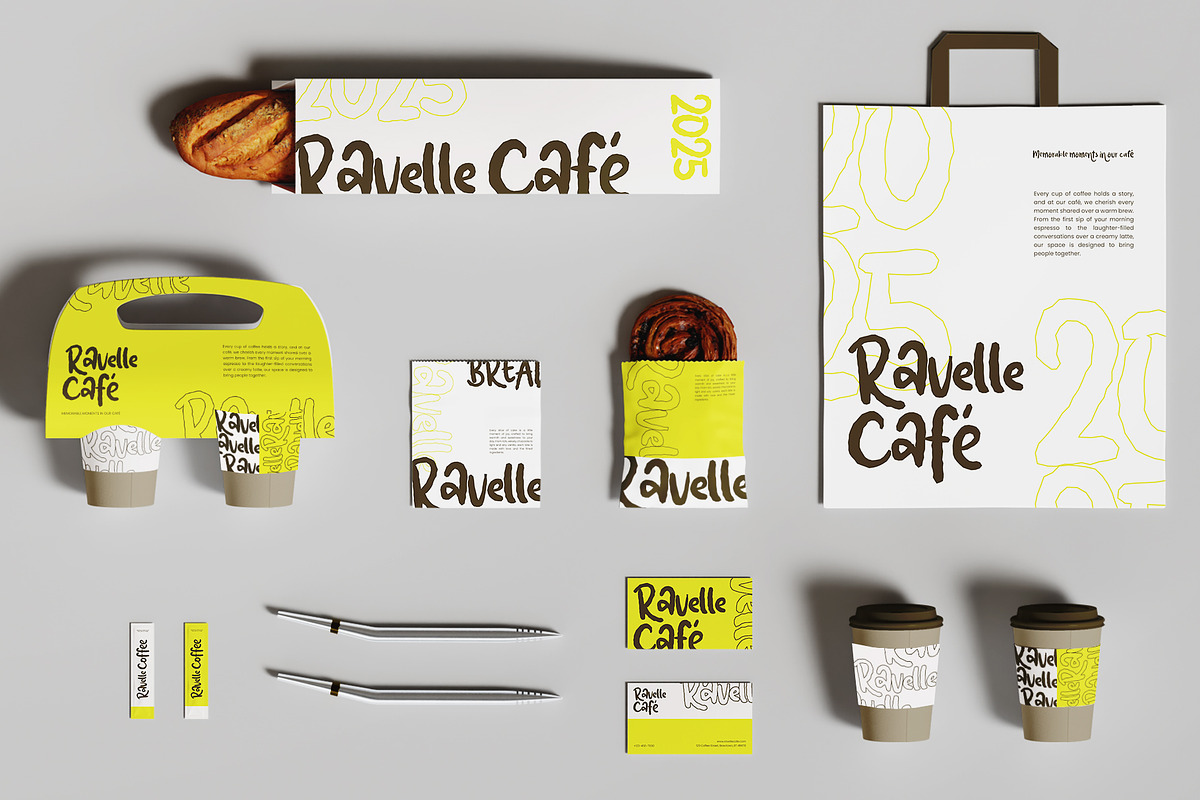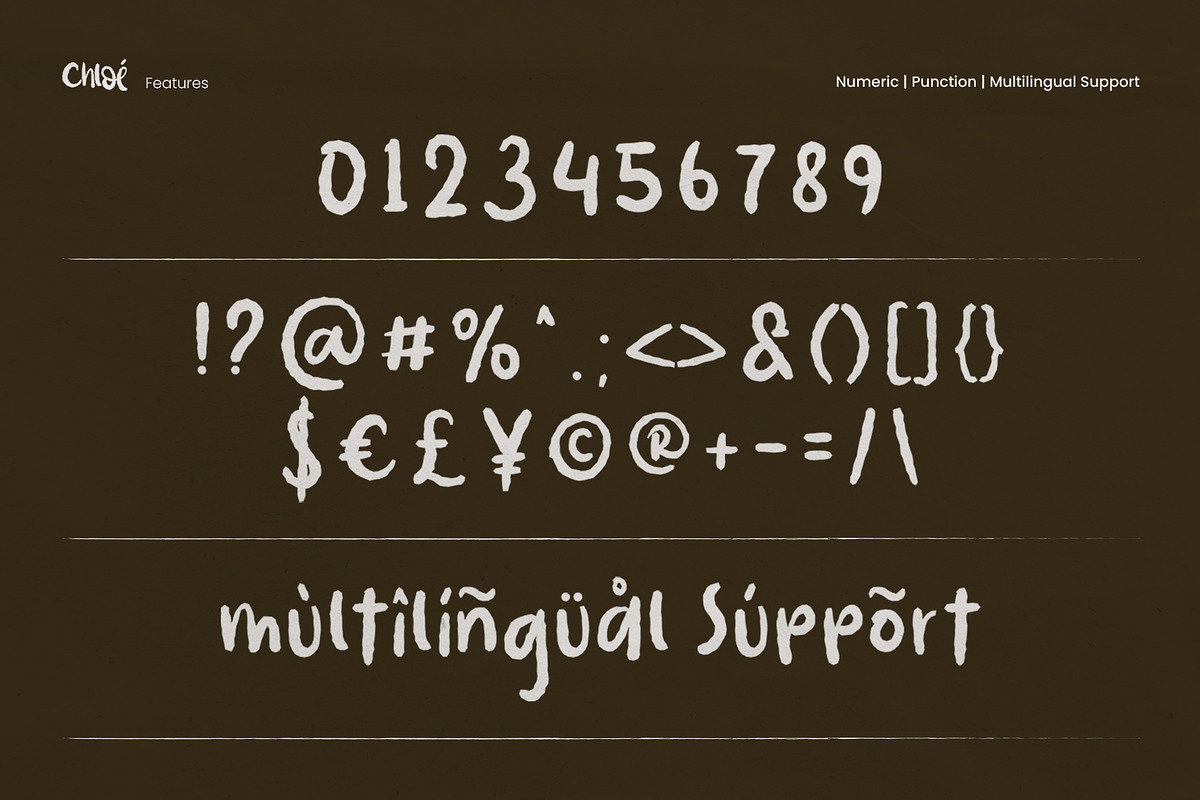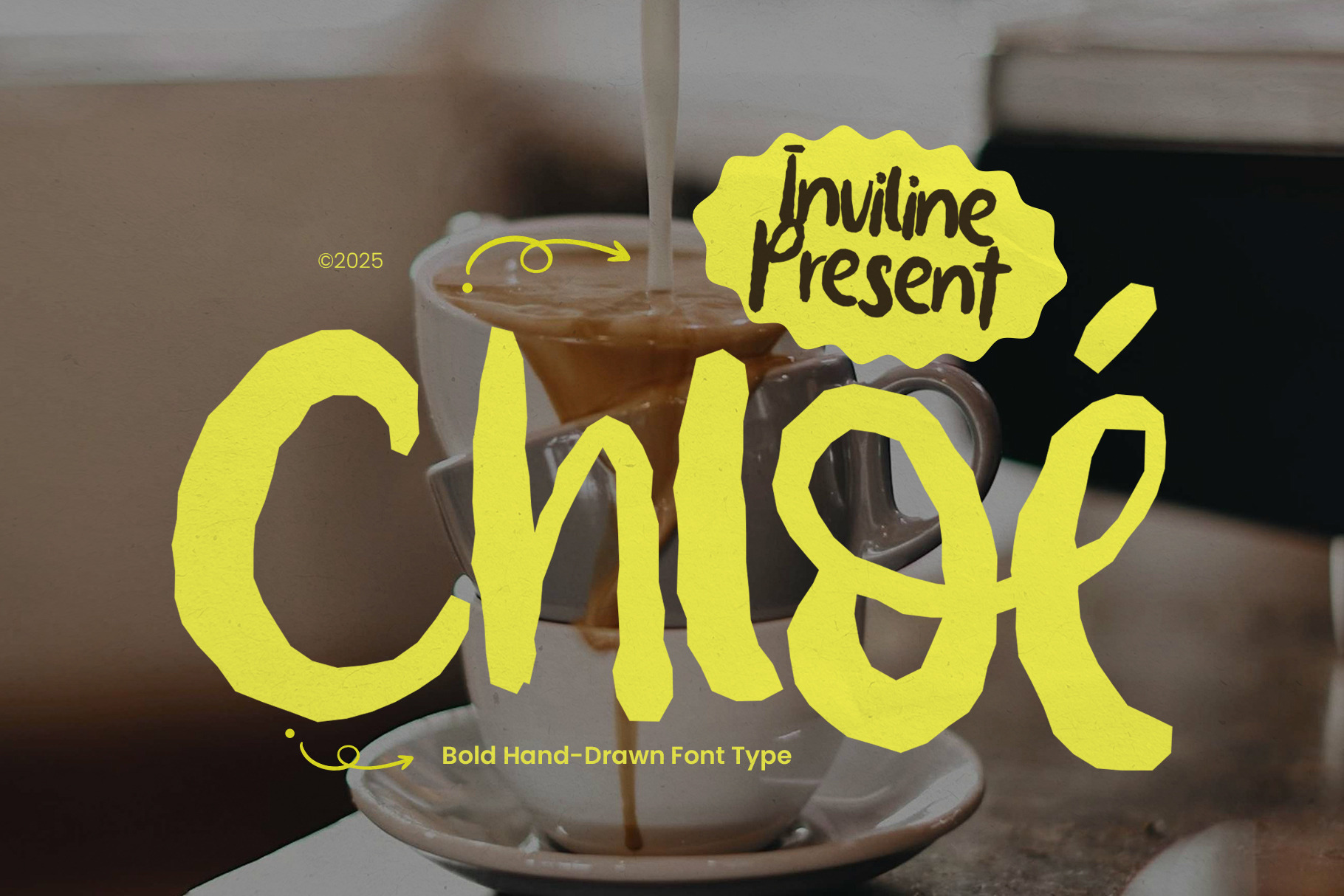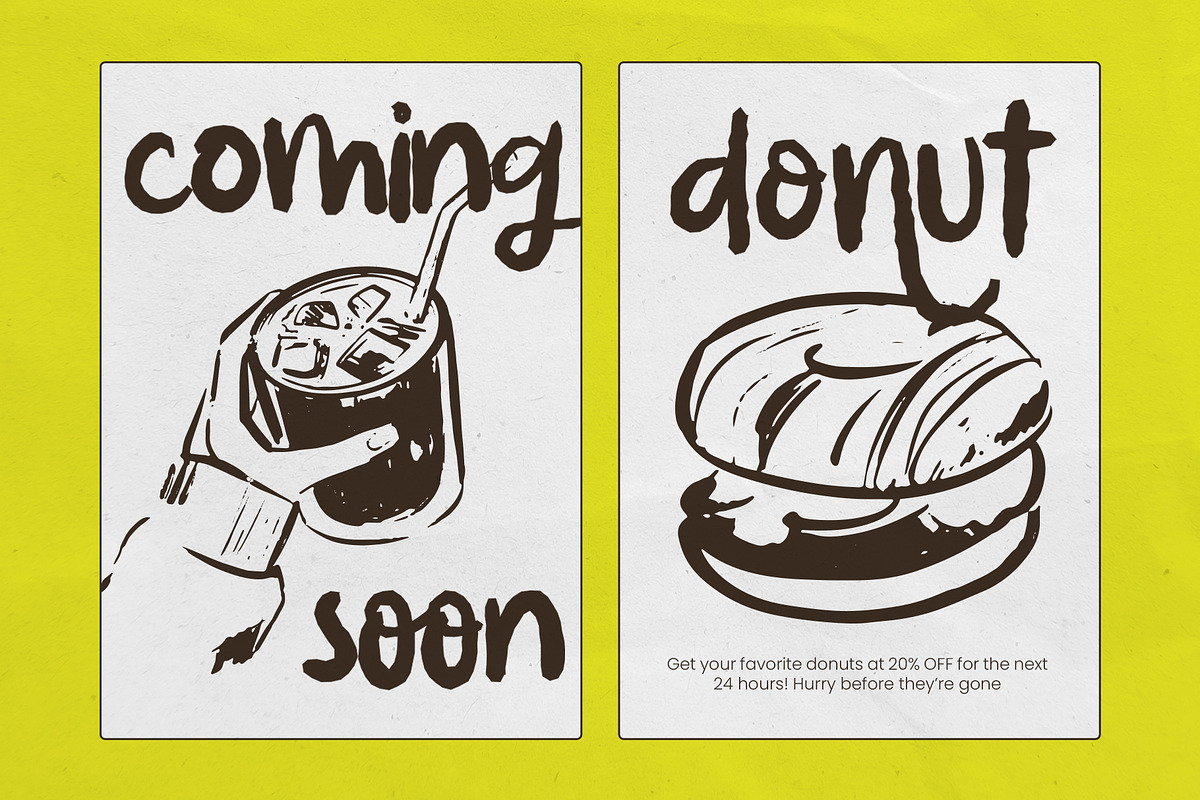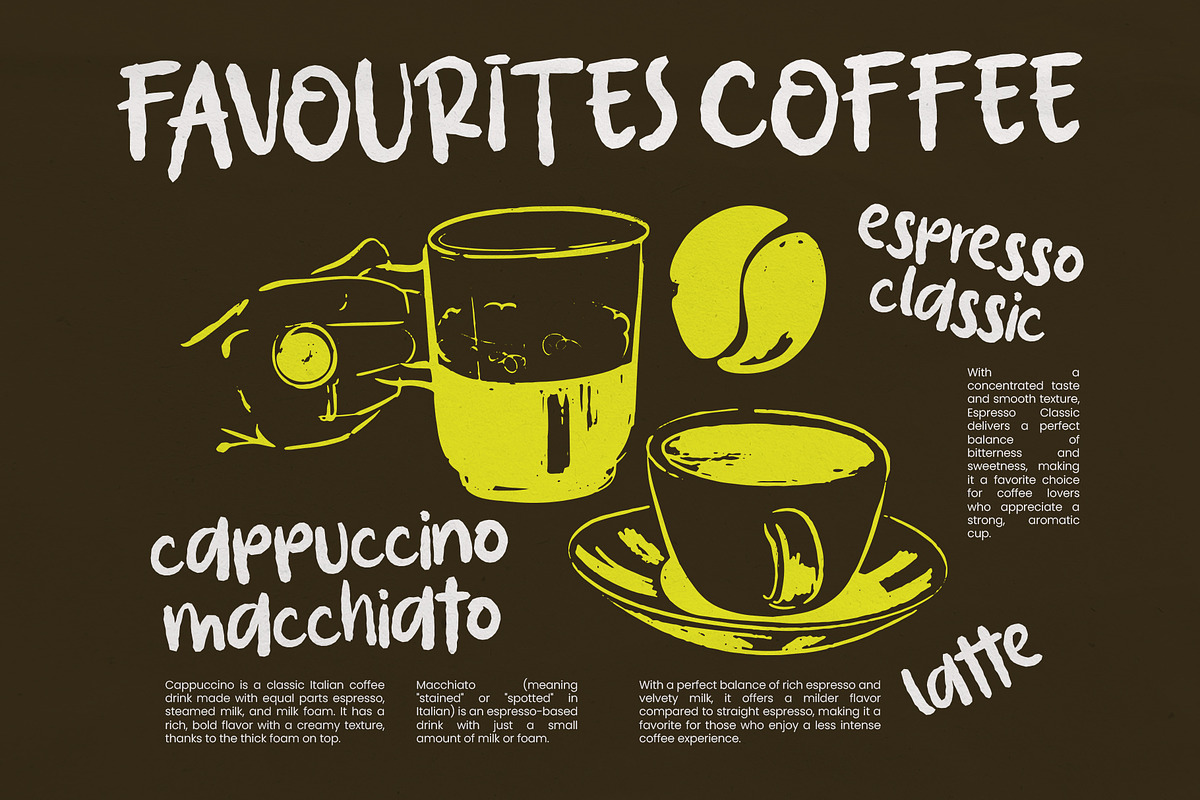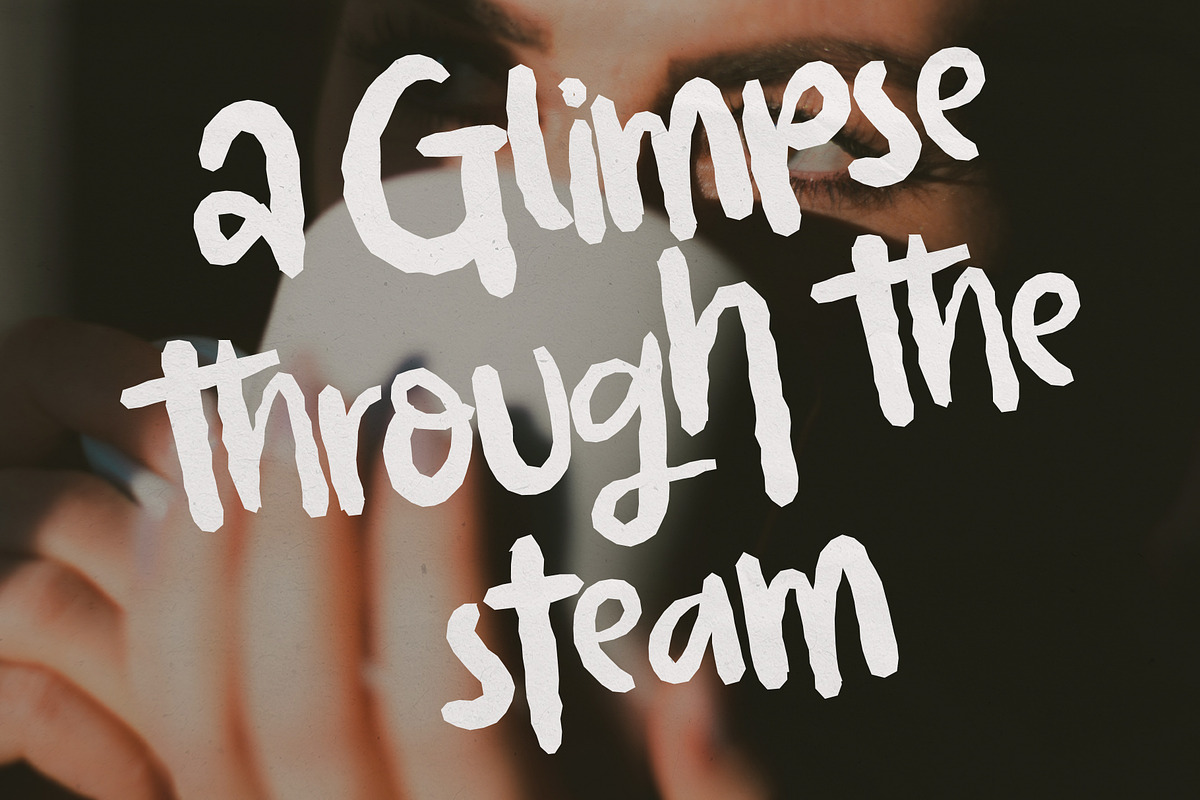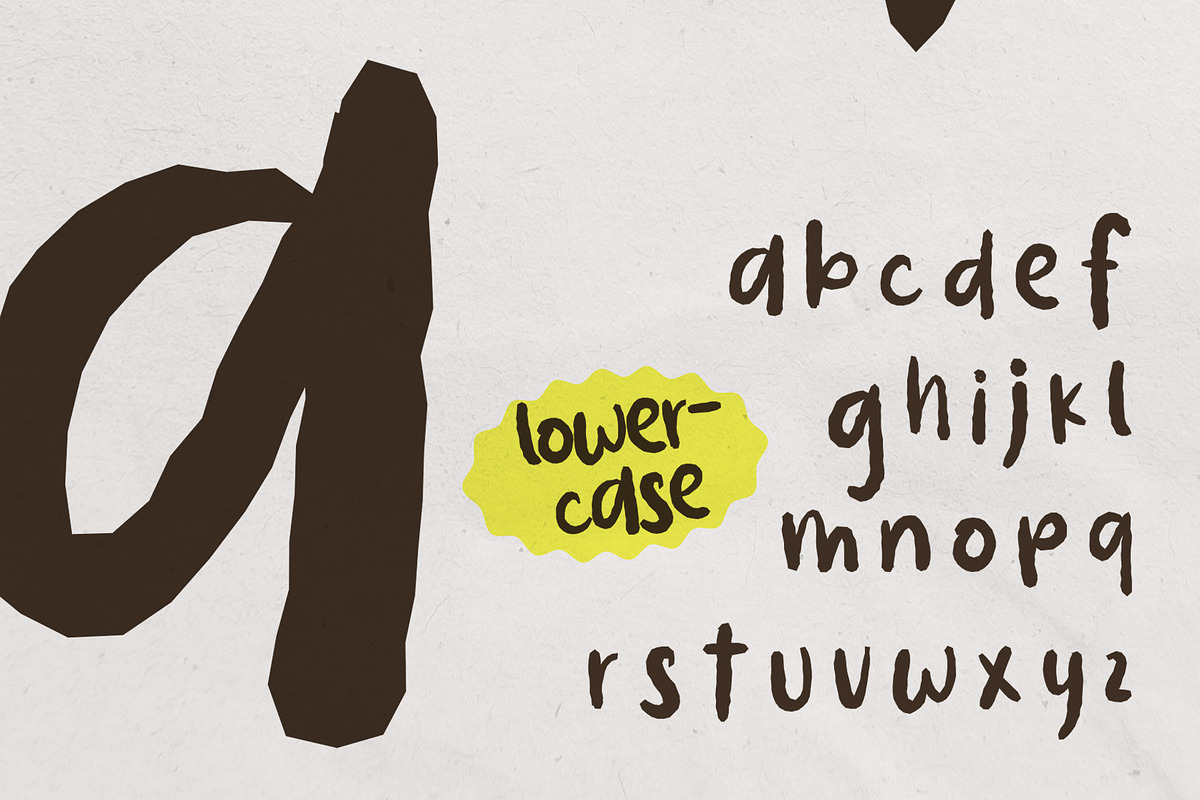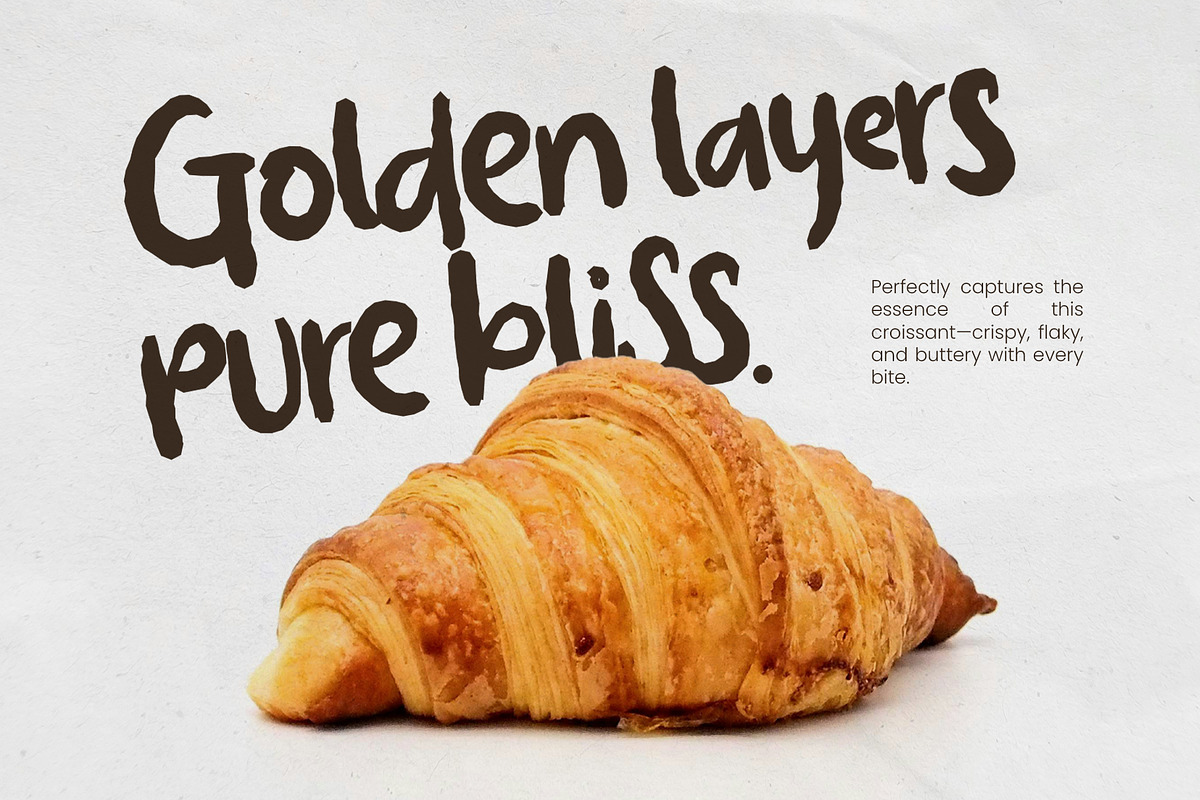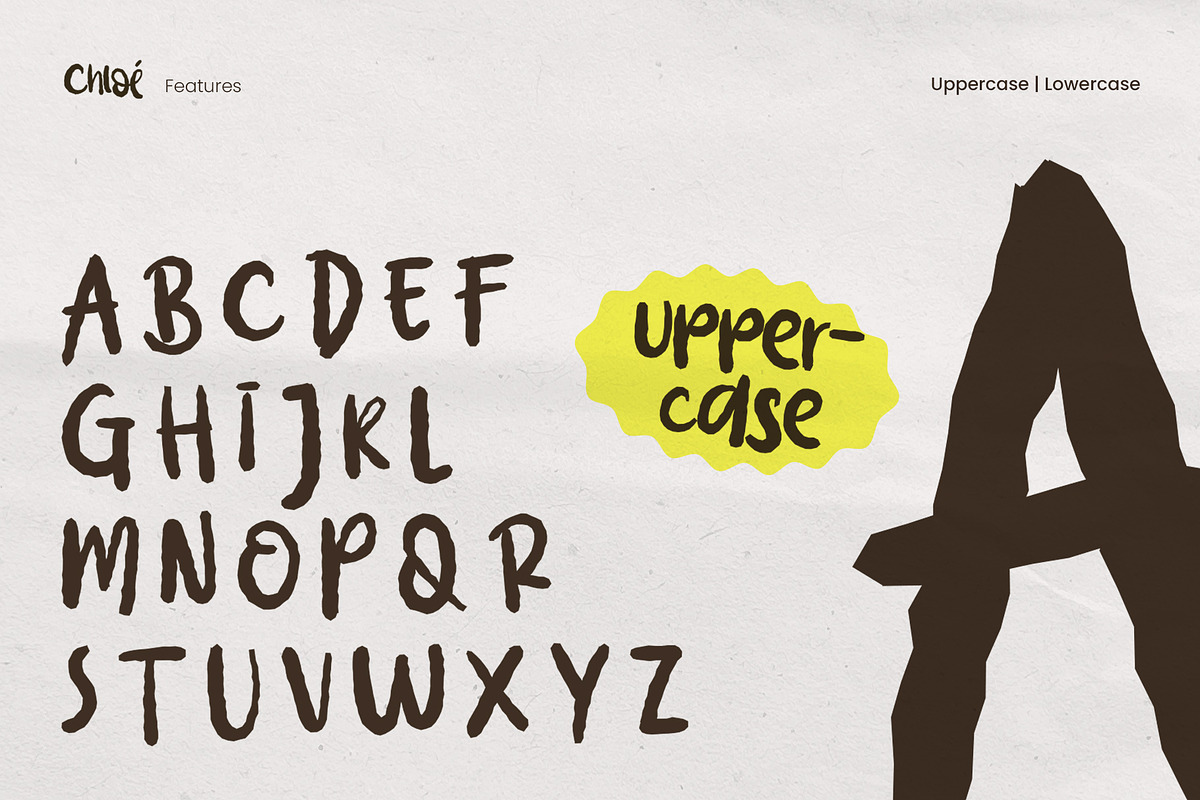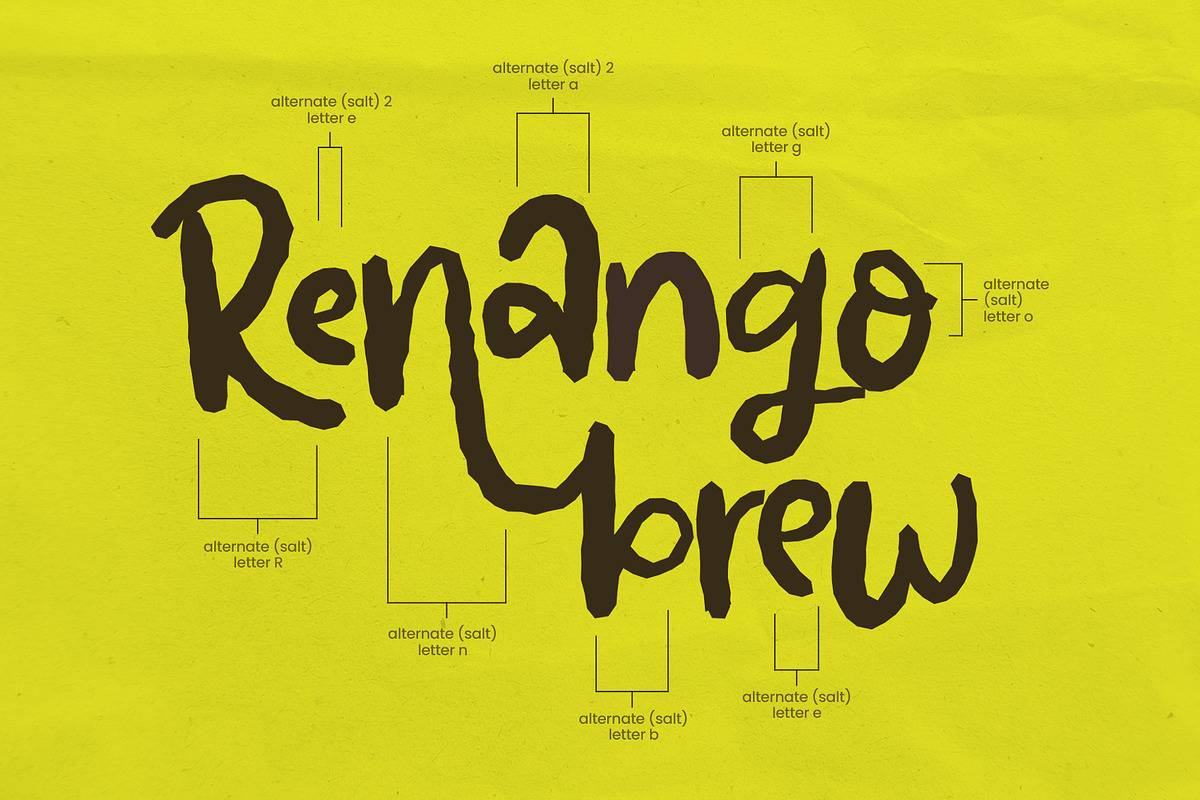
Chloe - Fun Handwritten Font
Introducing Chloe, a fun and playful handwritten font perfect for adding a touch of personality to your designs. Its bold, hand-drawn style, with irregular strokes, creates an artistic and expressive feel. Ideal for creative branding, dynamic designs, and projects that need a touch of warmth and whimsy.
- Uppercase & Lowercase Characters: Fully designed for a complete typographic experience
- Numerals & Punctuation: All the numbers and punctuation marks you need for any design task
- Multilingual Support: Includes characters for multiple languages, ensuring global usability
- High-Quality Design: Each font is crafted with attention to detail, ensuring a polished and professional look